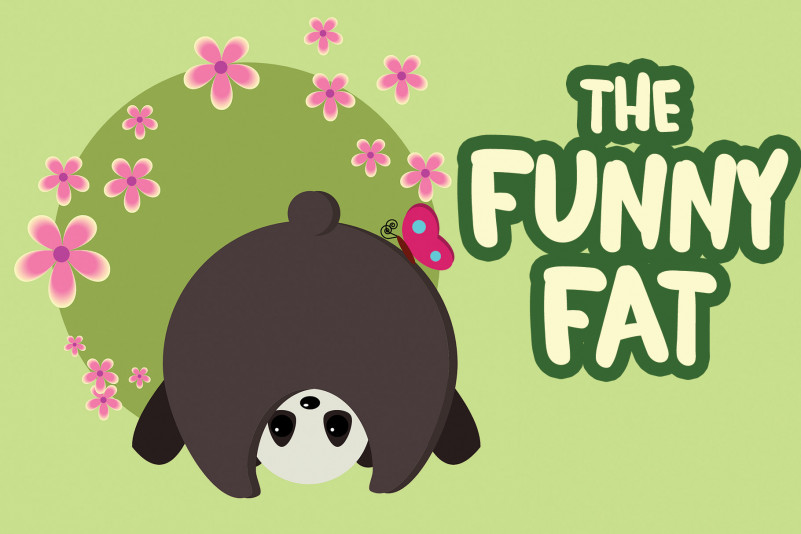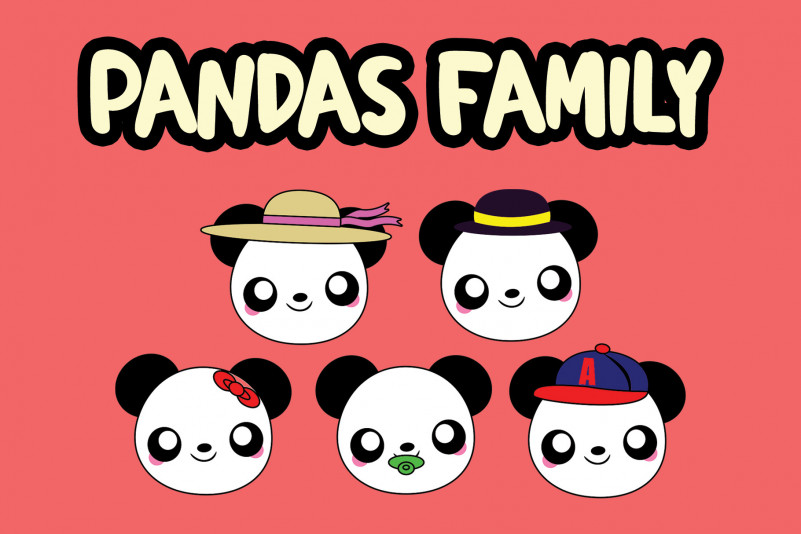
Magical Panda Font
Magical Panda Display Font
This is a cute & friendly display font. Get inspired by its incredibly youthful feel. Add this chunky lettered font to your designs and notice how it makes them come alive!